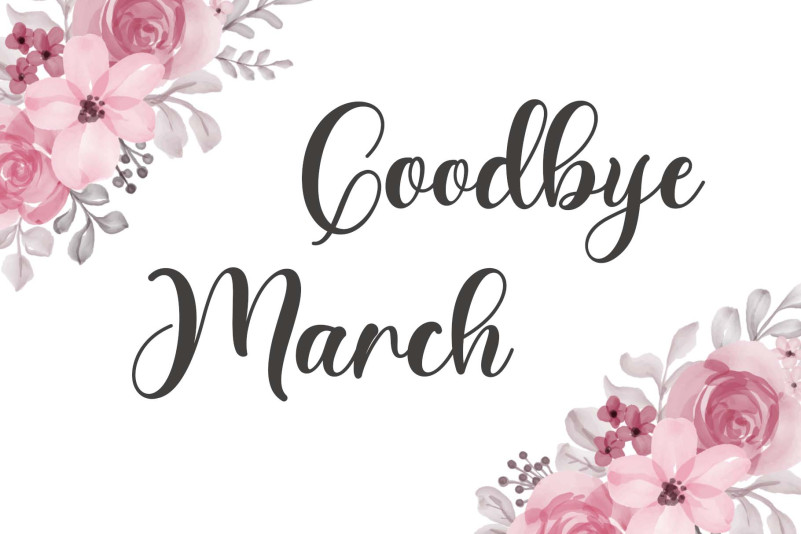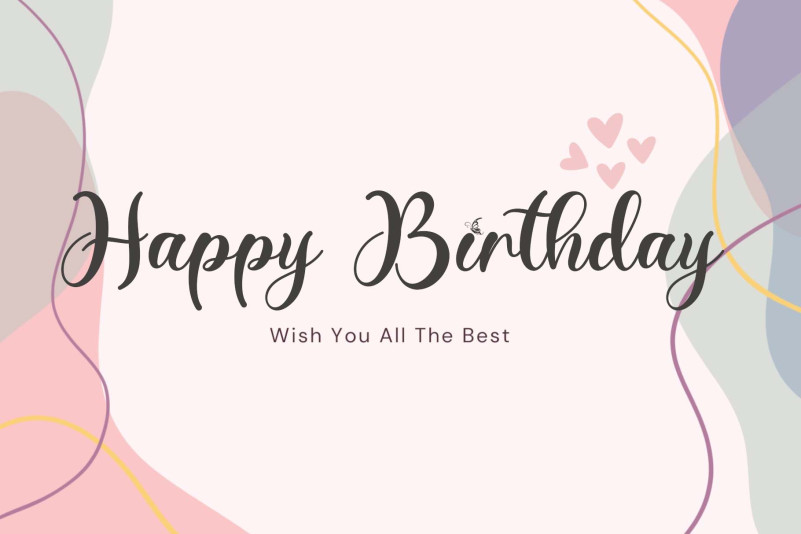
Spring Easter Font
Spring Easter Font is a romantic and exquisite script font that is perfect for adding an elegant touch to any project. With its graceful flourishes and delicate curves, it exudes a sense of sophistication and romance. Whether used for wedding invitations, love letters, or other romantic projects, this font is sure to make a lasting impression.